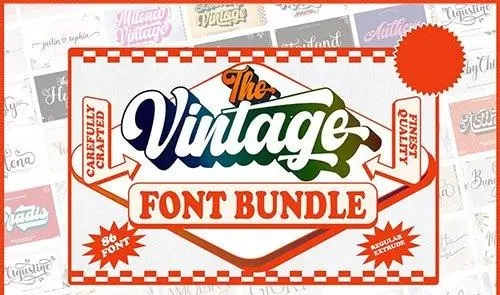
The Vintage Font Bundle is a carefully curated collection of classic typefaces that evoke a sense of nostalgia and charm. Perfect for designers seeking to add a timeless touch to their projects, this bundle features a variety of font styles and weights suitable for numerous applications.
- Multiple font styles including serif, sans-serif, and script
- Variety of weights from light to bold
- Unique vintage aesthetics for authentic branding
Each font in this bundle is designed with attention to detail, ensuring legibility and versatility. Whether you are working on logos, packaging, or web design, these fonts will provide the perfect finishing touch.
- Ideal for branding projects, invitations, and retro-themed designs
- Combine different styles for a unique typographic hierarchy
- Use in both print and digital formats to maintain a cohesive aesthetic